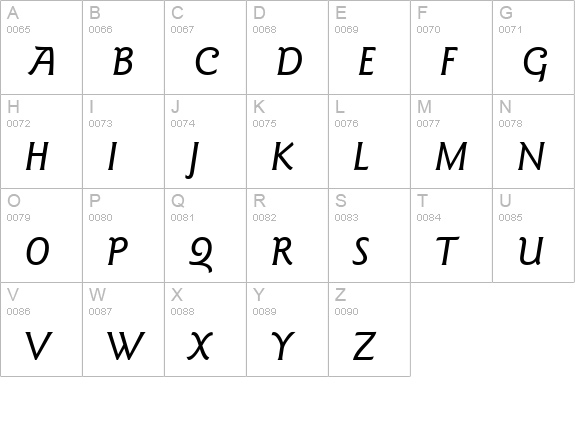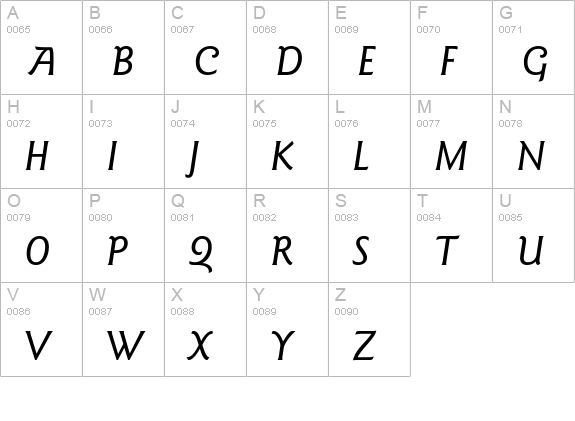
Goudy Sans Medium Italic BT Font Details
Goudy Sans Medium Italic BT is a balanced, medium-weight, italic variant in the Goudy typeface family \xE2\x80\x94 well suited to sub-headlines, navigation, and balanced editorial work.
Goudy Sans Medium Italic BT font exudes a sense of modern sophistication with its stylish yet approachable design. The italicized medium weight adds a touch of elegance to the already versatile Goudy Sans family. Ideal for adding emphasis and flair to your projects, this font is perfect for headlines, quotes, and branding materials. Best of all, Goudy Sans Medium Italic BT is available for free download at FontsMarket.com. Whether you're a designer looking to elevate your work or a content creator in need of a unique typeface, this font offers the perfect blend of professionalism and creativity. Don't miss out on the opportunity to enhance your designs with this exceptional typeface that is just a click away.